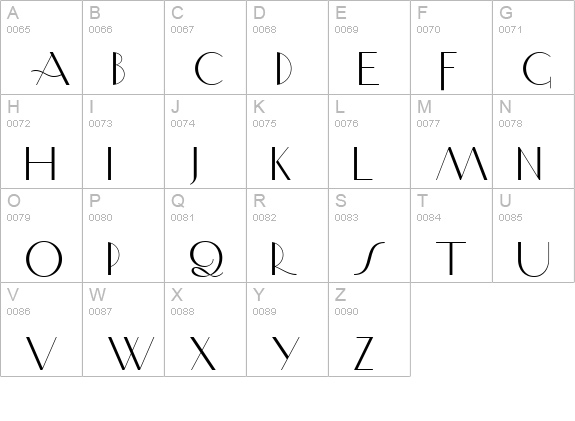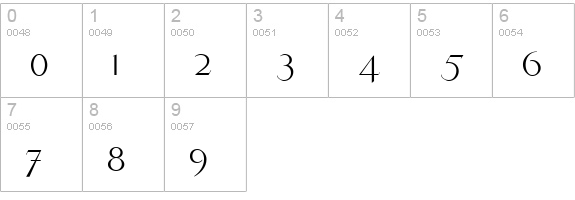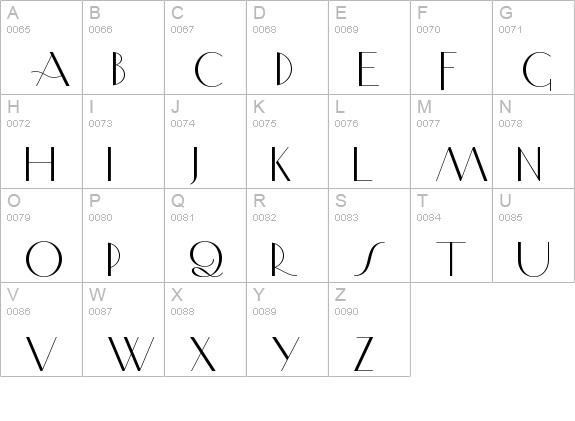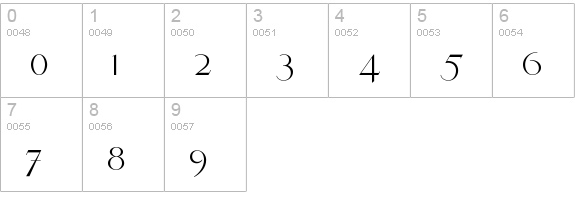
Introducing Smart Frocks NF, a beautifully crafted font that effortlessly combines elegance and modernity. This typeface exudes a sense of sophistication with its sleek lines and stylish curves. Its versatility makes it perfect for a wide range of projects, from branding and advertising to editorial designs and invitations. The Smart Frocks NF font is not only visually stunning, but it also offers a seamless reading experience. The characters are meticulously designed to ensure legibility and readability in any size or format. Whether used for headlines, body text, or even decorative elements, this font will capture attention and make a statement. One of the best things about Smart Frocks NF is that it is available for free download at FontsMarket.com. This means that you can easily access and utilize this remarkable font without any cost. It's a fantastic opportunity to enhance your creative endeavors without having to worry about breaking the bank. With Smart Frocks NF, you can elevate your designs to new heights. Its timeless appeal and contemporary flair make it a must-have for any designer or creative professional. Whether you're working on a personal project or a client's request, this font will undoubtedly add a touch of sophistication and elegance. So why wait? Download Smart Frocks NF today and unlock the limitless possibilities it offers. Let your creativity flow and watch as your designs come to life with this exceptional font. Remember, it's free and available for download exclusively at FontsMarket.com. Don't miss out on this incredible opportunity to enhance your design toolkit.